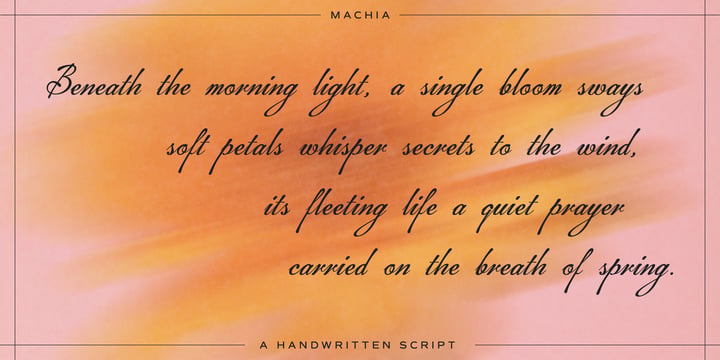
Ryoichi Tsunekawa
Ryoichi Tsunekawa’s Flat-it foundry is located in Nagoya, Japan. Ryoichi debuted his first MyFonts font family in June and now has 15 families on the website. Machia, a connecting script font with elegant swashes, had been atop our Starlets page for quite a while after its initial release, but now [October 2006] the complementary Machiarge tops the chart. Machiarge is a casual heavier brushdrawn script, meant to be Machia’s kid brother.
Besides scripty fonts, Ryoichi has also created Boycott, a noisy poster font that’s a little rough around the edges. Another new design, Tokyotrail, is inspired by the capital of Japan, one of the world’s largest cities with over 2,000 square kilometers to explore. The font is designed with straight lines running vertically, horizontally, and diagonally.
We interviewed Ryoichi about his background as well as his take on all things type.
Ryoichi, please tell us a little about your background and experience.
I was born in 1978 in Nagoya, Japan. Since my childhood, I have always had an interest in paintings, art and design, especially abstract forms such as geometric repeating patterns. At university, I majored in Architecture. After graduating with an MA, I worked in Tokyo as an architect and engineer.
How did you get started in typeface design?
When doing presentations on architectural designs at university, I always used to worry about what font to use in order to make the presentation more appealing. I did not like using the same font as other people, so I remember every day I used to stare at catalogues from foundries all over the world. Sometimes I would design my own fonts in the end. Thinking about it now, that is when I started to create my own typefaces.
You’ve released quite a variety of typeface designs, from scripty to grunge to futuristic. How do you decide on the kind of typeface design you want to develop?
Being a Japanese person in Japan, I don’t have many opportunities to come into contact with western alphabet characters. There are not that many different types of typefaces in magazines either. Since there are only few inspirational typefaces I come across in Japan, I am compelled to investigate further and research to try to create variations of typefaces. I have so far only released 20 or so typefaces, so I would not specify my style as yet. Typefaces I create depend on how I feel at that particular moment.
Can you tell us the process you go through in designing a font?
When I design a font, I spend some time making a whole series of rough sketches using pen and paper. During this drawing process, a vague idea of the font that I want to create gradually emerges. Then I draw a few glyphs of the font, say ‘R’, ‘d’ and ‘s’. After transferring the sketches to my computer, I begin the long process of re-working them up again and again. It usually takes me over three or four weeks of concentrated time to produce a finished font.
What typeface designs are you working on now? When can we expect to see them at MyFonts?
At the moment I am working on typefaces that are inspired from or evocative of historical typefaces from around the world. There would be a series of about 12 typeface families. I would start releasing them around the end of this year as “xxx modern” series.
What’s your favorite typeface, and why?
I don’t really have a favorite typeface in particular. I am attracted to original typefaces on flyers and hand-painted letters on billboards (for shops and restaurants). Both of them may not be high-quality in execution, but the passion and the thoughts of the creator/writer are manifest.
What font do you never, ever want to see used again?
That would be Helvetica. Of course, Helvetica is a great font, but it became too popular and disseminated too much. To use Helvetica is to be the same as someone else. Also font designers, including myself, need to think about creating a font that will surpass the success of Helvetica, just like some architects outshine Le Corbusier and Mies van der Rohe.
Do you work full-time as a font designer?
In addition to being a font designer, I am currently working as a graphic designer and architect.